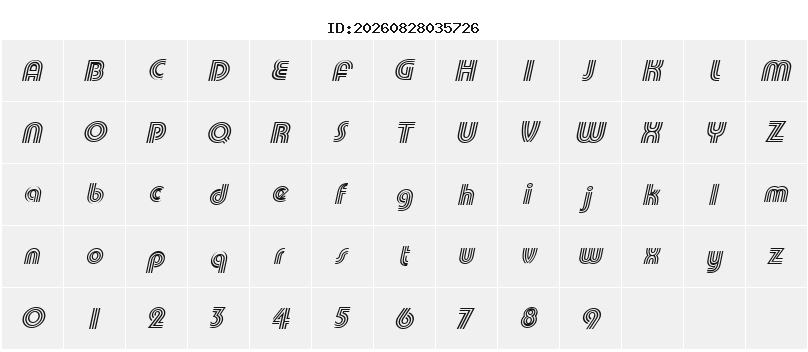
Triplee Slanted Preview
• Font Name: Triplee Slanted
• Full Font Name: Triplee Slanted
About Triplee Slanted.ttf
Triplee Slanted.ttf is a modern, elegant sans-serif font designed for ultimate readability and visual harmony. Perfect for branding, headlines, web design, and print materials.